10+ Recommended Fonts for Food Brands, Extraordinarily Worth It!
Fonts for Food Brands
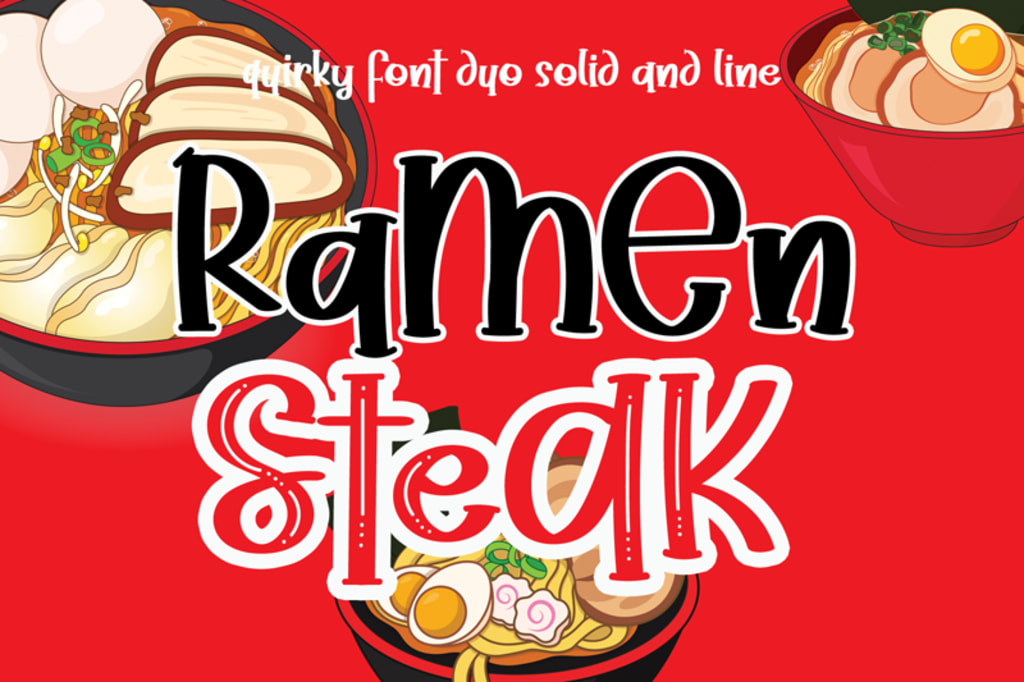
Font for food brands is very important for the continuity of a business. It is because every font used will be a highlight that always appears whenever business branding is concerned. As a result, choosing the font that you will use for a brand or logo must be careful.
Best Font for Food Brand: Unique and Interesting
Every font must be able to define each business brand’s vision and mission. So here is the best compilation you can choose for your food products.
1. Milkshake
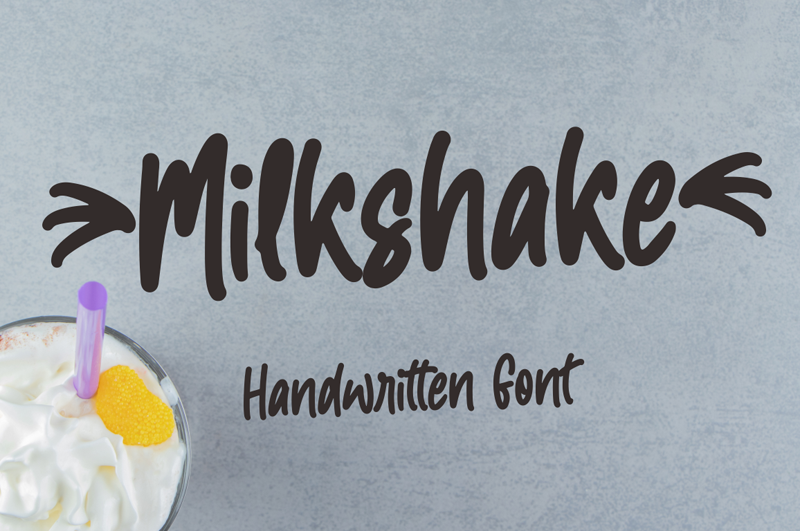
First things first, this font will be suitable to apply to brands in the food and beverage sector. As the name implies, Milkshake is a handwritten font that emphasizes semibold writing designs. So, you can use this as a display and the title on the logo.
2. Foodlist
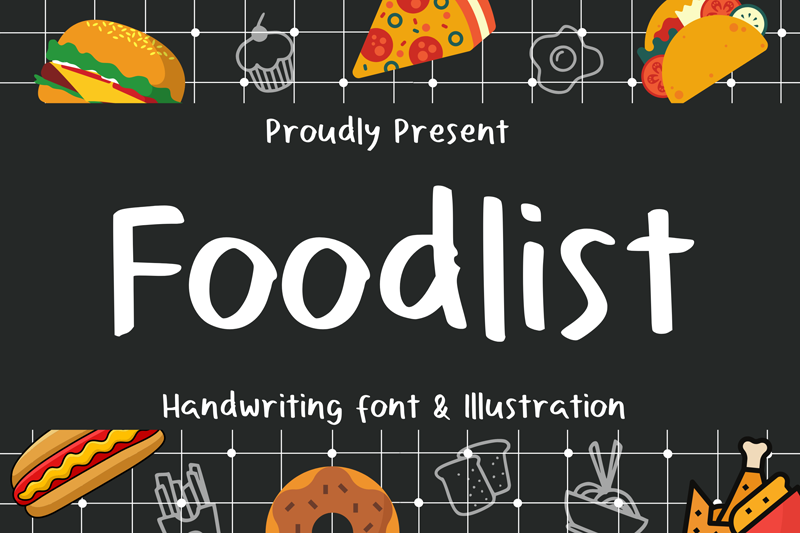
Food brand is a business sector that has a very expansive range. Choosing a brand image is also quite complex. This font design from the Foodlist can be a decent choice of font reference for many food brand images. For example, you can use it for dessert brands, fast food, or even products that sell main courses.
3. The Brands
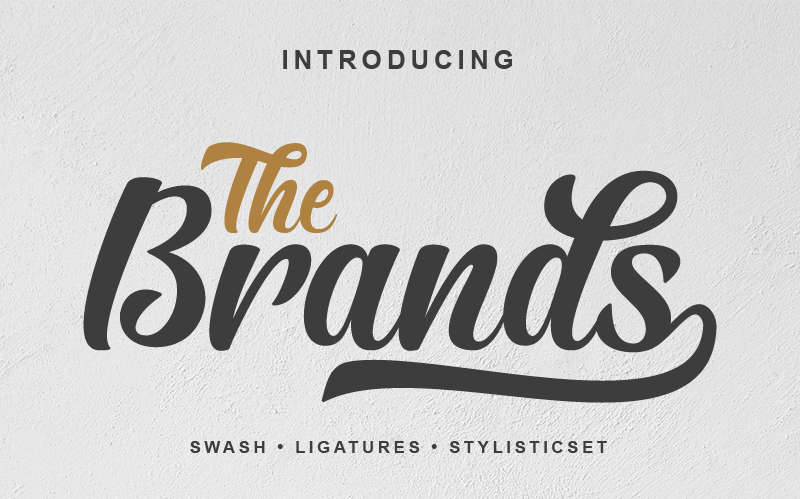
If you look at The Brands alphabetical sequence, it might not look like a font for food brands. Don’t get me wrong, because The Brands font will make your food brand even more unique and different from other food products.
Its stylish design is typical of font ligatures which are a minor bold, making this font suitable as a display or logo for your food brand.
4. Codigra
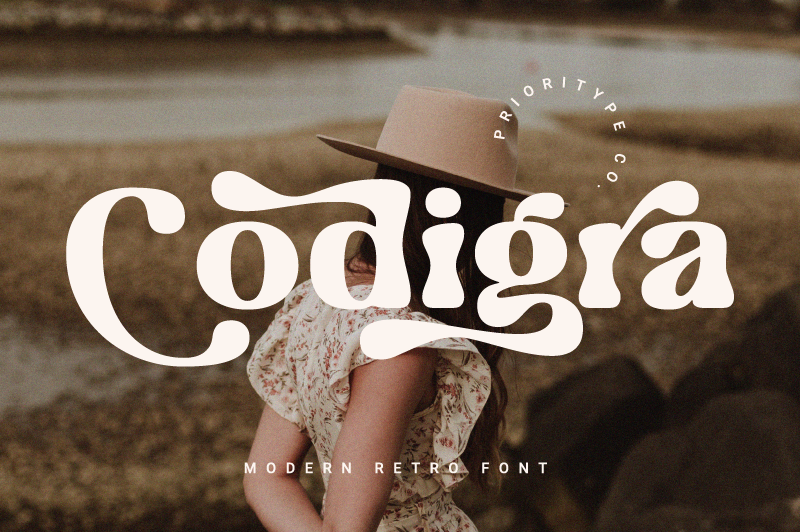
Next, let’s take a look at the Codigra font. This font is inspired by the retro style of 70’s fonts but creatively done with a touch of a better modern style.
Typical retro fonts are starting to appear again, so using this font will help your food brand seem different. Besides that, this font will also suit to combine unique types of food and specialty foods from a region.
5. Mabook
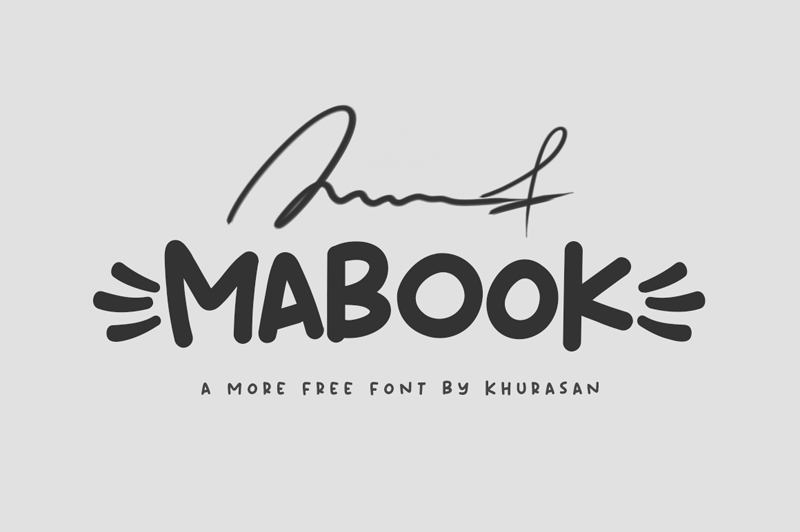
You may have seen this type of handwritten font before. But if you look closely at this font from Mabook, it has a unique side.
The alphabet set on this Mabook is a capital font with a cartoon touch. Hence, it may give a playful and fascinating impression. This type of font for food brands will be suitable for branding dessert or appetizer food.
6. Sushi Moshi
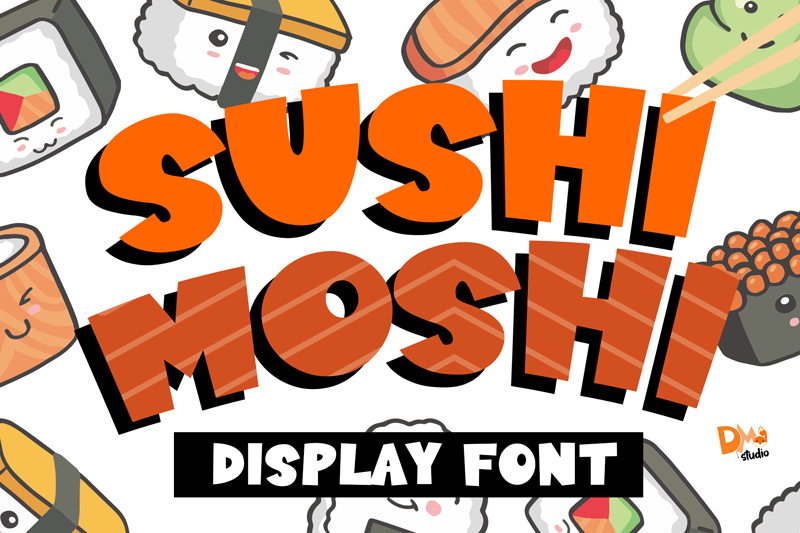
As the name suggests, Sushi Moshi is the best font for a sushi brand. If you plan to open a franchise business in the form of Japanese specialties, you can also use this font as your brand display. Apart from being unique, this font is quite noticeable, making it easier for the audience to remember your food brand.
7. Kamryn
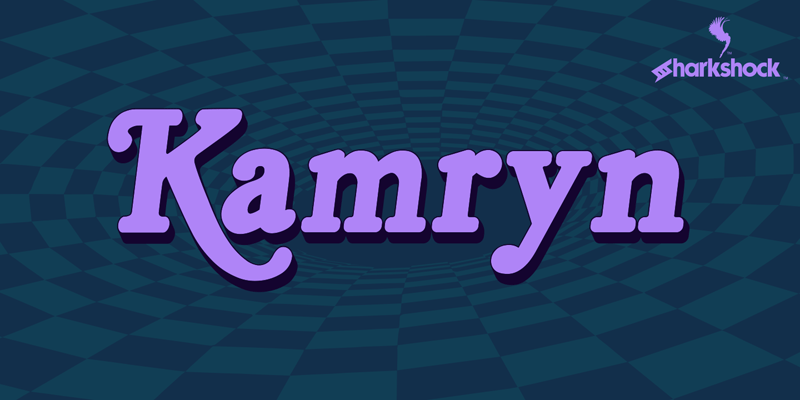
Different from the previous font for food brands, Kamryn is one of the unique fonts. The appearance of the design that looks like your usual serif font is also suitable for food brand highlights. Especially if you aim to use this font as a fast food brand. For example, fried chicken restaurants or bars and restaurants that sell snacks.
8. Heavy Brush
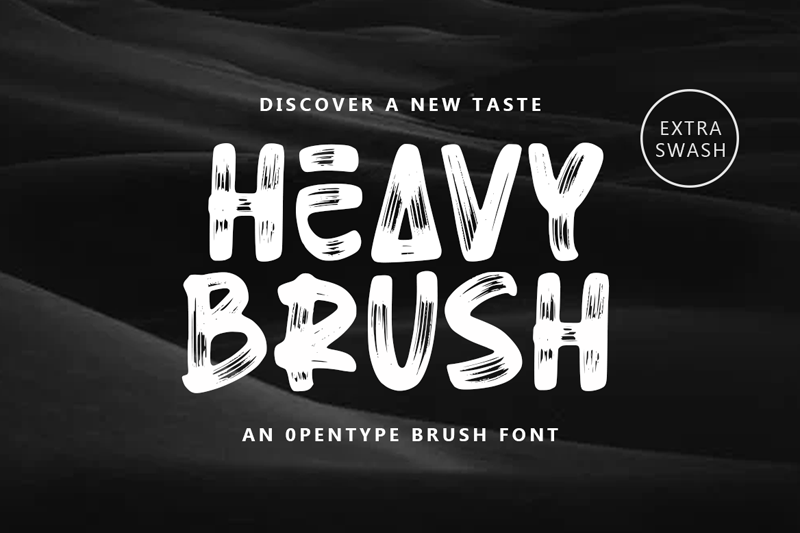
Your desire to have a successful food business and be easily remembered by customers must be a priority in choosing a brand design.
One of the unique and memorable fonts is Heavy Brush. The design is special, with heavy brush strokes making each letter effortlessly visible. This font design will be suitable if you pair it with fast food types, such as burgers or breakfast menus.
9. Fresh Food
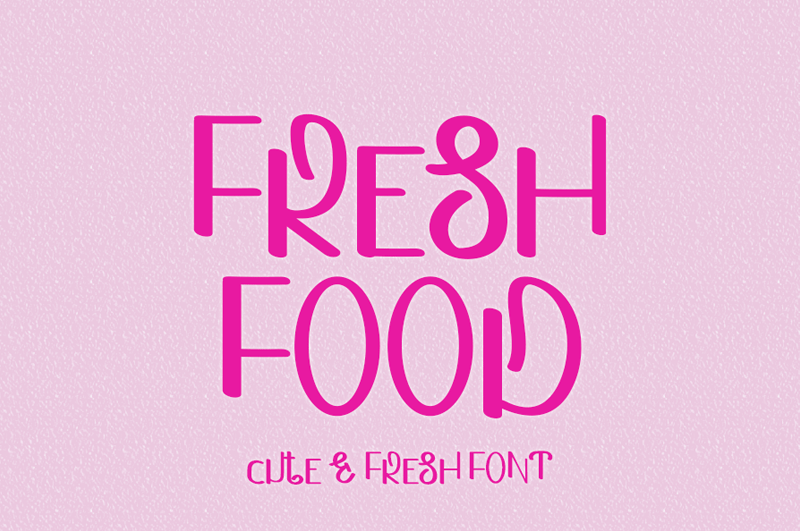
Seeing the letters from the Fresh Food font makes our minds directly focus on fresh types of food. It might be a brand of salads, appetizers, fruit juices, and other fresh foods. Fresh Food can give a more cheerful impression on your food brand design. Carrying a cute, fresh theme makes this font more playful and attractive!
10. Food Zone
A font for a food brand should be easy to read and more upbeat. Therefore, it will attract potential buyers who are not starving to be craving the food. Food Zone is a font with a bold and beautiful style, so this font might be suitable as a brand for foods such as donuts, ice cream, and others.
11. Ramen Steak
Some people tend to choose to use a more playful font for their food brand. This Ramen Steak is one of the best recommendations for your noodle or ramen restaurant. With a quirky font display, this Ramen Steak will make your brand even more gorgeous!
Let’s Find Your Gorgeous Font for Food Brand!
Those are 11 recommendations that every entrepreneur may find. Whichever font you want to use for your designs, ensure that it may employ the real food you’re going to sell.